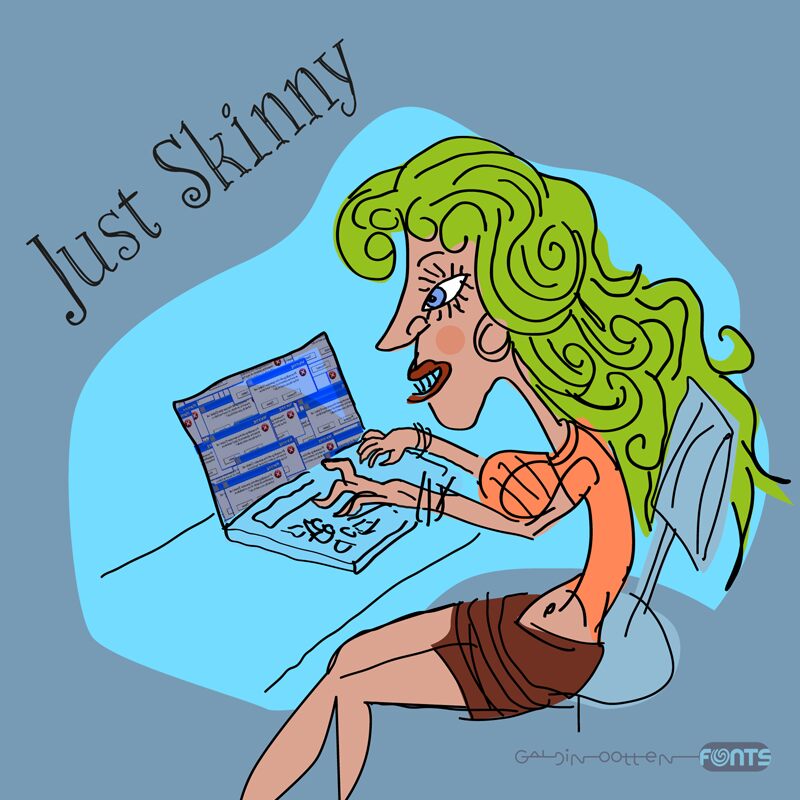
Just Skinny
Just Skinny font by Galdino Otten Fonts is a handwritten condensed font with a whimsical, informal aesthetic. This distinctive typeface exhibits quirky and playful decorative flourishes at its edges, resulting in an overall youthful appearance. Its thin characters are all directly connected to one another which enhances their visual balance and legibility. The many playful associations of the style make it appealing to readers of all ages with each letter keeping its own individuality.
The font will convey unique messages in posters, quotes, logos, websites titles, blog headlines, social media content, unique packaging designs as well as t-shirt prints. Other appropriate uses include magazines ads and cover designs within industries like fashion and lifestyle.